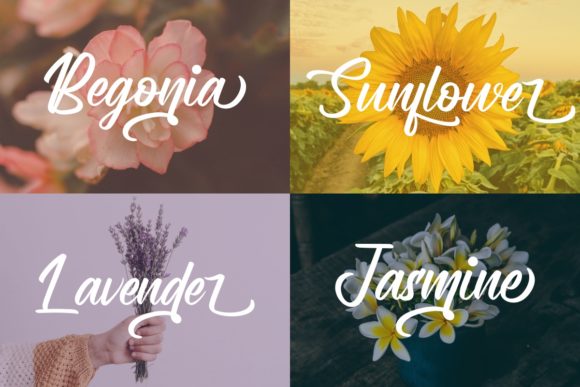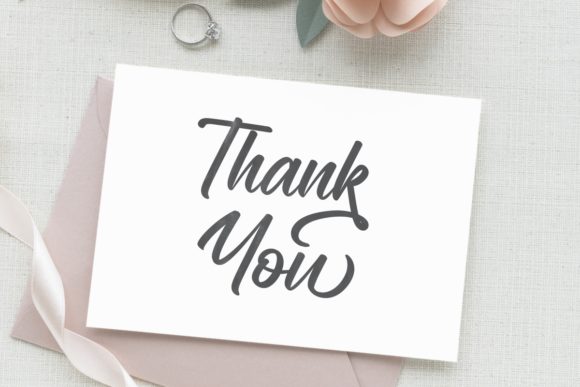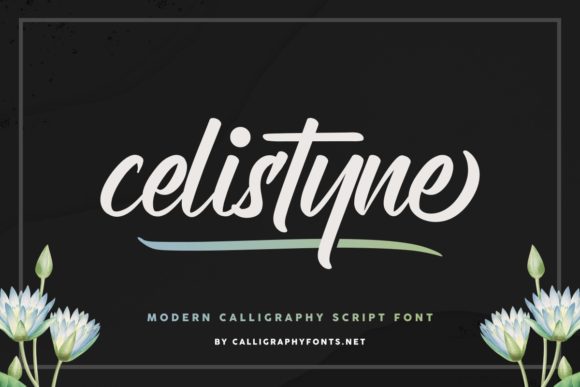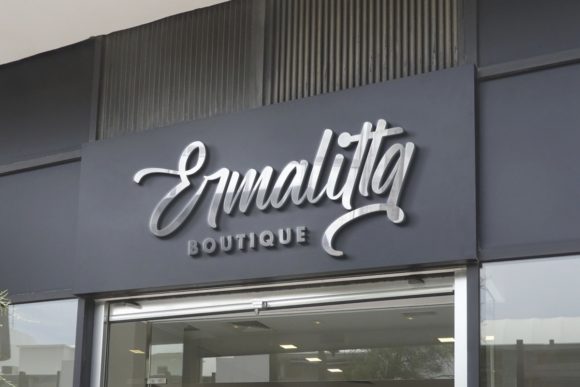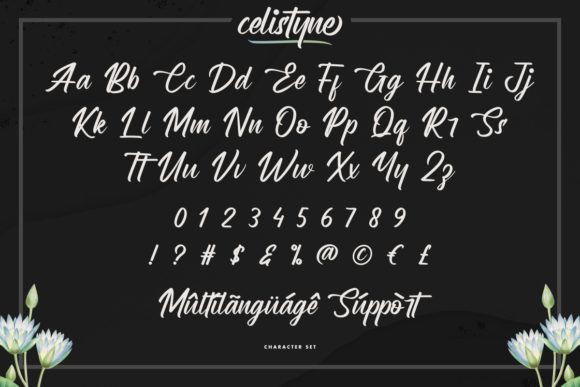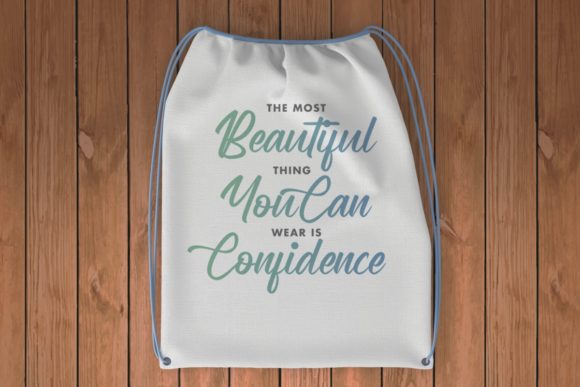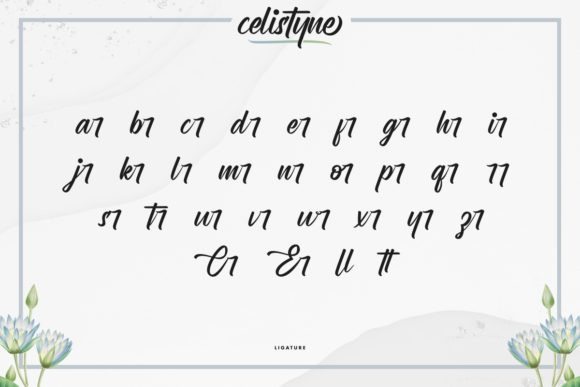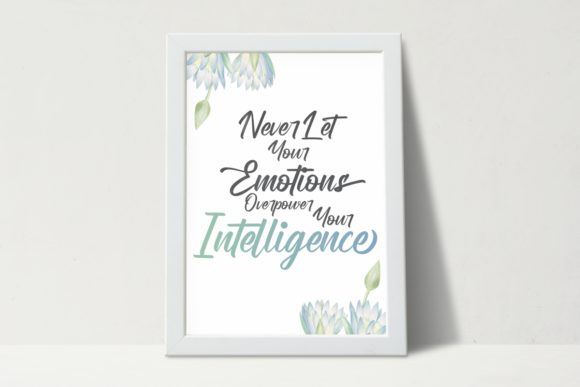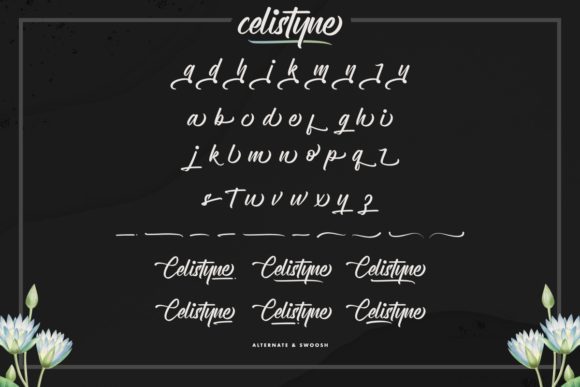
Celistyne Font
About Celistyne Font
Introducing Celistyne, a classic handwritten font that brings a touch of elegance and personalization to your crafting projects. With its timeless appeal and refined letterforms, Celistyne is perfect for adding a personalized and sophisticated look to your designs.
The graceful strokes and balanced proportions of Celistyne give it a classic and refined appearance. Its handcrafted style adds a sense of authenticity and warmth, making it ideal for creating personalized gifts, custom stationery, handmade cards, and other crafting projects that require a touch of individuality.
With the PUA encoding feature, accessing all the glyphs and swashes of Celistyne is a breeze. This allows you to effortlessly add flourishes, decorative elements, and stylish variations to your designs, giving them a unique and customized flair. Whether you want to embellish your text with elegant swashes or ornamental details, Celistyne provides you with the flexibility to achieve the desired effect.
The versatility of Celistyne makes it suitable for a wide range of crafting projects. Whether you’re creating wedding invitations, scrapbooking pages, home decor items, or personalized labels, Celistyne adds a personalized and handmade feel that elevates your creations. Its classic charm enhances the overall aesthetic and creates a sense of craftsmanship.
Let Celistyne be your go-to font for crafting projects that require a personalized touch. Its classic handwritten style exudes a sense of refinement and individuality, making your designs stand out with a touch of sophistication. Whether you’re creating custom artwork, personalized gifts, or crafting keepsakes, Celistyne adds a special and unique element to your projects.
Unleash your creativity with Celistyne and bring your crafting projects to life. Infuse your designs with the charm of a classic handwritten font and create pieces that are truly one-of-a-kind. With Celistyne, your crafting endeavors will be elevated to a new level of elegance and personalization.
So, embrace the classic beauty of Celistyne and let your crafting projects shine with a personalized and sophisticated look. Whether you’re creating for yourself or for others, Celistyne adds a touch of individuality and craftsmanship that sets your creations apart. Let Celistyne be your companion in bringing your crafting visions to reality.